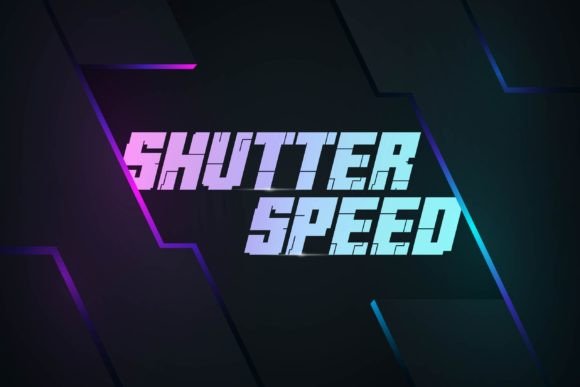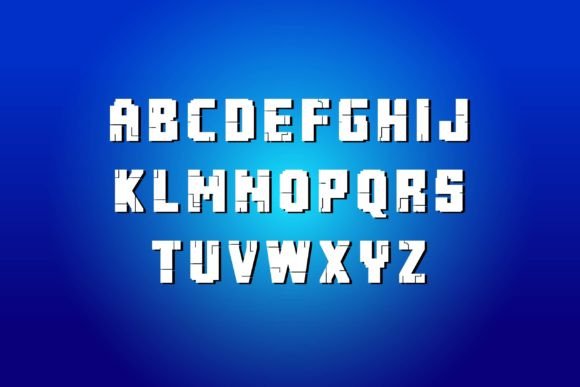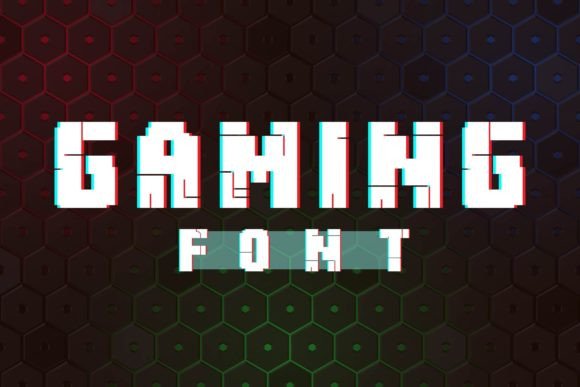
Introduction to Minecroft Font
Minecroft is a fun and playful display font that transports your designs into a vibrant world of creativity and joy.
With bold, dynamic letterforms and an adventurous spirit, it captures the essence of playfulness Ideal for projects seeking a whimsical and lively aesthetic, Minecroft infuses a delightful and imaginative flair into your creative expressions.